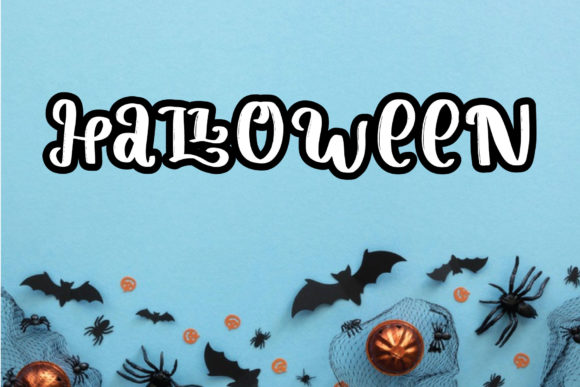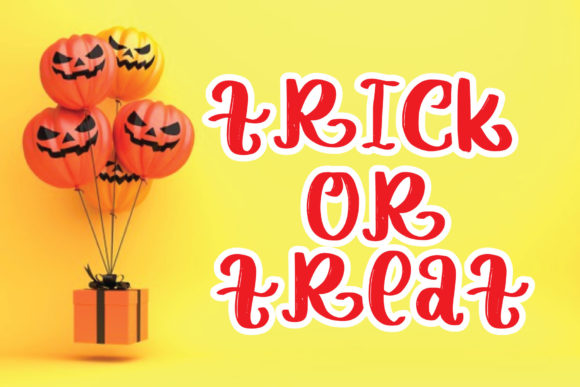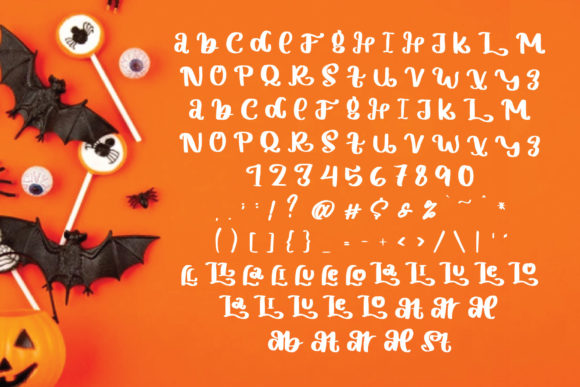
Introduction to Halloween Creepy Font
As you’re brainstorming ideas for your next creative project, the perfect font can make all the difference. Imagine yourself in the dead of night, surrounded by cobwebs, jack-o’-lanterns, and an eerie moonlight – the perfect setting for a spooky Halloween party. You envision a design that screams “trick or treat,” but what’s missing is the perfect font to set the tone.
That’s where the Halloween Creepy Font comes in – a free download that will elevate your designs to new heights. This fun, friendly, and spooky display font is a valuable resource for designers looking to create high-quality, eye-catching graphics for their Halloween creations. With a transparent background and a unique, gothic-inspired design, this font is perfect for adding a touch of eeriness to your designs.
Key Features of Halloween Creepy Font
- Unique, hand-drawn design for a spooky and creative project
- High-quality font with a transparent background for seamless integration
- Includes 100+ characters, including uppercase and lowercase letters, numbers, and special characters
- Perfect design resource for Halloween-themed posters, invitations, and other creative projects
Honest Review: Halloween Creepy Font
I recently stumbled upon the Halloween Creepy Font while searching for a spooky design resource to enhance my creative project. As a designer, I was eager to see if this free download would deliver on its promise of eerie vibes.
Here’s what I liked about it:
- ✨ The font is incredibly versatile and can be used for a wide range of Halloween-themed projects, from invitations to social media graphics.
- ✨ The high-quality design ensures that the font looks great on both dark and light backgrounds, making it easy to use in various creative scenarios.
- ✨ The transparent background option is a nice touch, allowing for seamless integration with other design elements.
- ⚠️ The font may be a bit too spooky for some projects, so be sure to consider your target audience before using it.
Overall, I’m impressed with the Halloween Creepy Font and would recommend it to designers looking for a high-quality, spooky design resource. Just be sure to use it responsibly and follow the licensing terms.
The Halloween Creepy Font is perfect for a variety of creative projects, including Halloween-themed designs, spooky invitations, and creepy social media graphics. It’s also a great resource for designers who want to add a touch of elegance and sophistication to their projects.
To get the most out of the Halloween Creepy Font, experiment with different font sizes, colors, and combinations to create unique and eye-catching designs. You can also pair the font with other design elements, such as images and graphics, to add depth and interest to your projects.